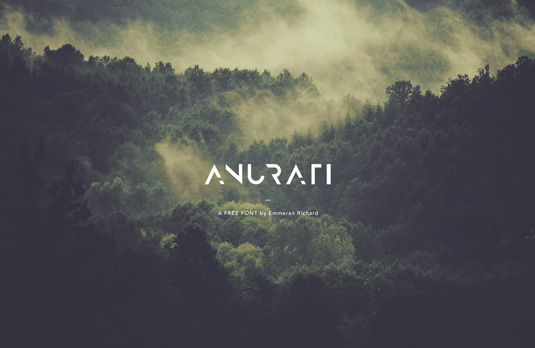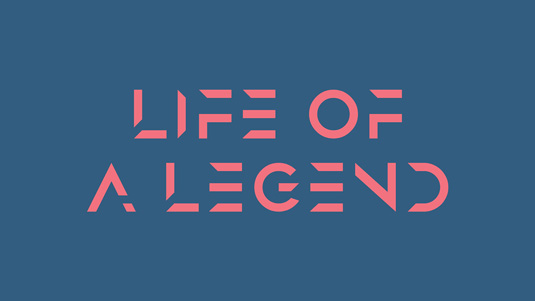
Font of the day: Anurati
Every day we showcase the best fonts on the web. Today it's Anurati by Emmeran Richard, which is free in exchange for a tweet.
Anurati by Emmeran Richard
Anurati is a new, futuristic font created by graphic designer Emmeran Richard. Available free for both personal and commercial use, you can also modify the colours of Anurati to suit your needs.